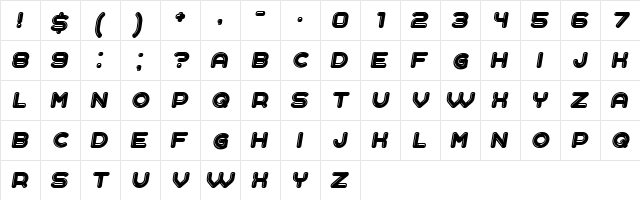
Liquid Italic
Design Context for Liquid Typeface
Liquid is a composed and adaptable typeface that performs quietly and consistently across a wide range of design contexts. Its italic angle brings a sense of urgency and motion to the letterforms.
Pro Tip: Use Liquid for emphasis, pull quotes, and subheadings where its slanted energy can add rhythm to the layout.